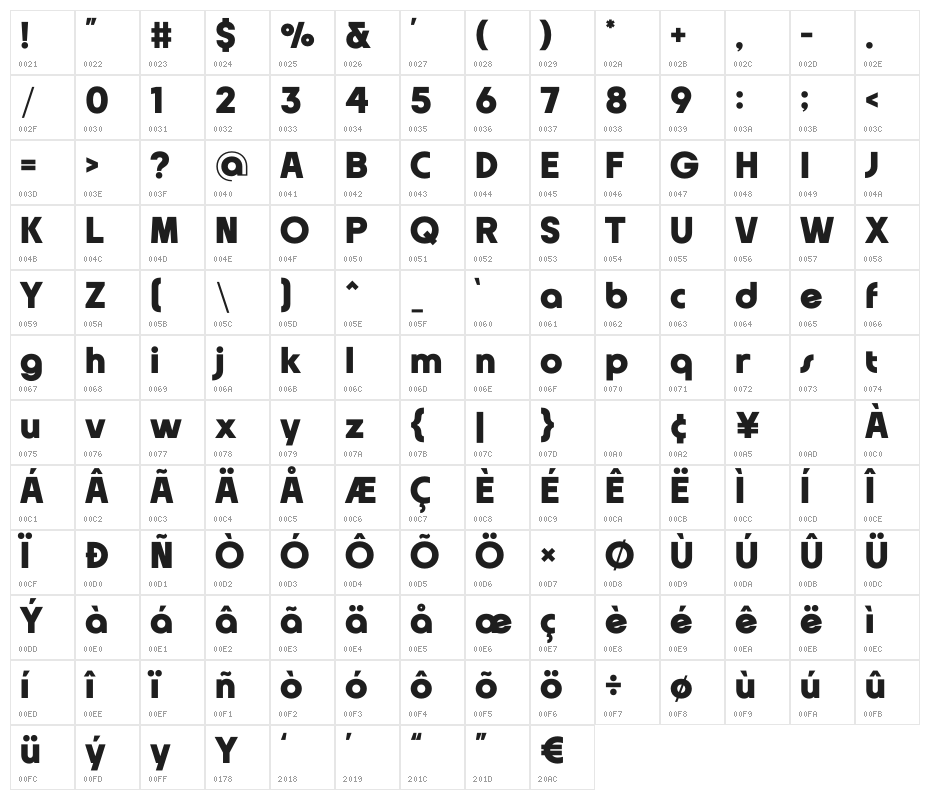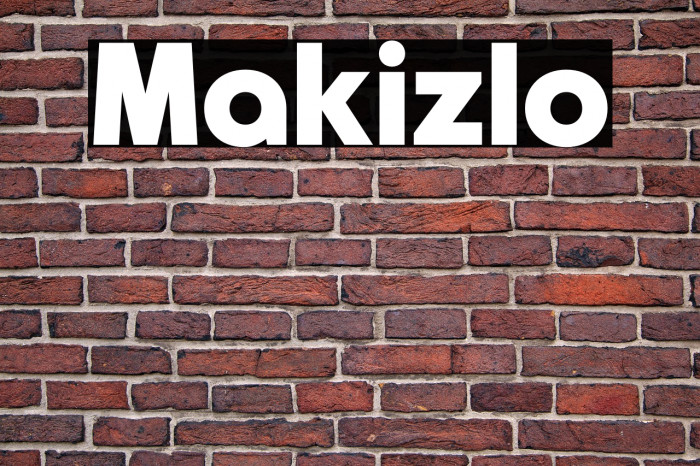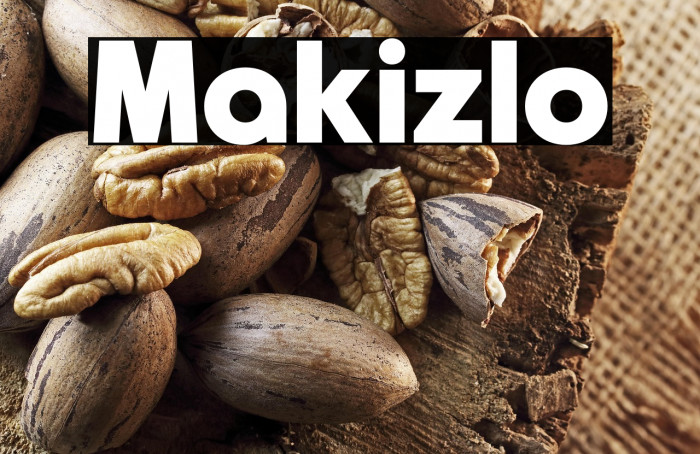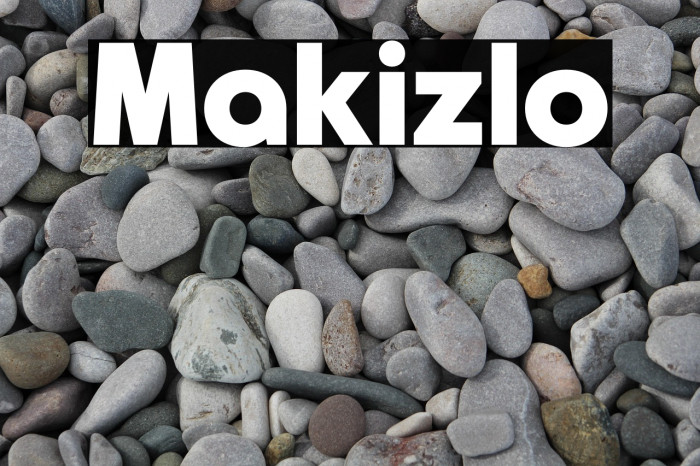
Makizlo Font
Makizlo Description
This typeface features bold, geometric letterforms with a strong presence. The uppercase letters are robust and commanding, while the lowercase letters maintain a consistent weight and structure, providing a harmonious balance. The numerals are clear and legible, designed to stand out in any context. Special characters are crafted with precision, ensuring they complement the overall style. The font's clean lines and modern aesthetic make it versatile for various design applications.